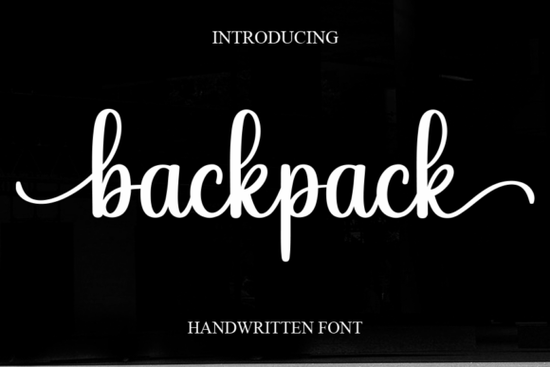
If you’re looking for a handwritten font that feels personal, warm, and just a little bit playful, Backpack Font might be exactly what your next project needs. It’s not overly formal or stiff instead, it carries a sweet cursive flow that works beautifully for designs meant to feel inviting and heartfelt. Whether you’re designing wedding invitations, branding materials, or greeting cards, this font adds charm without trying too hard.
What makes Backpack stand out is how effortlessly it blends elegance with casual warmth. The letterforms have gentle curves and subtle variations in stroke weight, giving it that authentic hand-lettered look the kind you’d see in a thoughtful note tucked into a lunchbox or a love letter sealed with a kiss. That’s why it fits so well in categories like fashion lookbooks, social media promos, or even custom merch for small businesses wanting to appear approachable yet polished.
What kinds of projects does Backpack Font work best for?
You’ll find this font shines when used in contexts where emotion matters:
- Wedding stationery think save-the-dates, menus, place cards, or thank-you notes.
- Branding & logos especially for bakeries, boutiques, florists, or lifestyle brands.
- Greeting cards & gift tags birthdays, baby showers, anniversaries, or seasonal holidays.
- Fashion & editorial layouts magazine spreads, Instagram quotes, product packaging.
- Print-on-demand products mugs, tote bags, journals, phone cases anything that benefits from a soft, human touch.
It pairs nicely with clean sans-serifs for contrast, or you can layer it with other script fonts like Gadiani or OurStory Duo if you want to build a more textured typographic hierarchy. Just avoid pairing it with another highly decorative script Backpack already has enough personality to carry the design on its own.
How does it compare to other romantic script fonts?
There are plenty of cursive fonts out there, but Backpack avoids being too ornate or overly stylized. Unlike something like Bridgerton, which leans into vintage drama, Backpack keeps things light and modern. It doesn’t scream “look at me!” it whispers “come closer.”
If you’ve ever browsed Creative Fabrica’s The Cute Handwriting Bundle, you know how many adorable options exist. But Backpack holds its own by balancing sweetness with readability. Even at smaller sizes, it remains legible which isn’t always true for delicate scripts. And if you’re drawn to whimsical styles, you might also enjoy Sweet Cupcake, though that one leans more toward childlike playfulness than romantic flair.
Any tips for using Backpack Font effectively?
A few practical suggestions to get the most out of this font:
- Use sparingly in headlines or accents. While it’s lovely, too much of it in body text can feel overwhelming.
- Add tracking (letter-spacing) slightly if letters feel too tight especially in all-caps settings.
- Try it over textured backgrounds watercolor washes, linen patterns, or soft gradients enhance its handmade vibe.
- Pair with minimalist layouts. Let the font breathe. White space is its best friend.
Also worth noting: Backpack includes standard ligatures and alternates in most versions, so take advantage of OpenType features if your software supports them. A quick toggle in Illustrator or InDesign can swap out default characters for more unique ones perfect for making your design feel truly custom.
Who should consider downloading this font?
This font is ideal if you:
- Run a small creative business and need fonts that feel personal but professional.
- Create printables, stickers, or digital templates for Etsy or Shopify.
- Design social media graphics that need to stand out with warmth and charm.
- Love handwriting styles but want something easier to scale and edit than actual pen-and-ink.
Even hobbyists who make cards for friends or decorate planners will find Backpack easy to use and endlessly versatile. No advanced typography skills required just good taste and a sense of occasion.